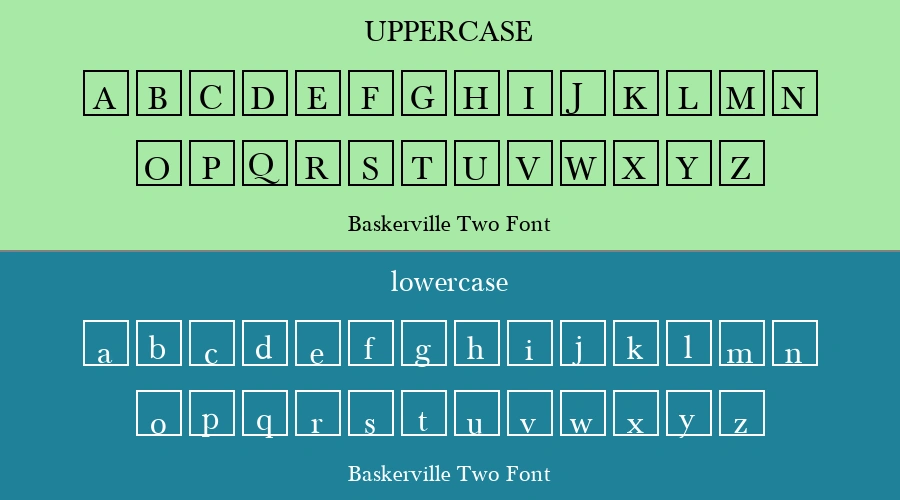
About Baskerville Two Font
Baskerville Two Font embodies typographic excellence through its masterful combination of flourishes and expressiveness. Created for social media content, this typeface delivers exceptional authenticity and creative impact across all applications. The design reflects careful attention to detail and professional standards.
Advanced capabilities include distinctive hairline details and versatile mathematical symbols, giving designers creative control. When used in brand statements, Baskerville Two Font exhibits remarkable weight distribution. The harmonious balance between stem weight and institutional trust sets this typeface apart.